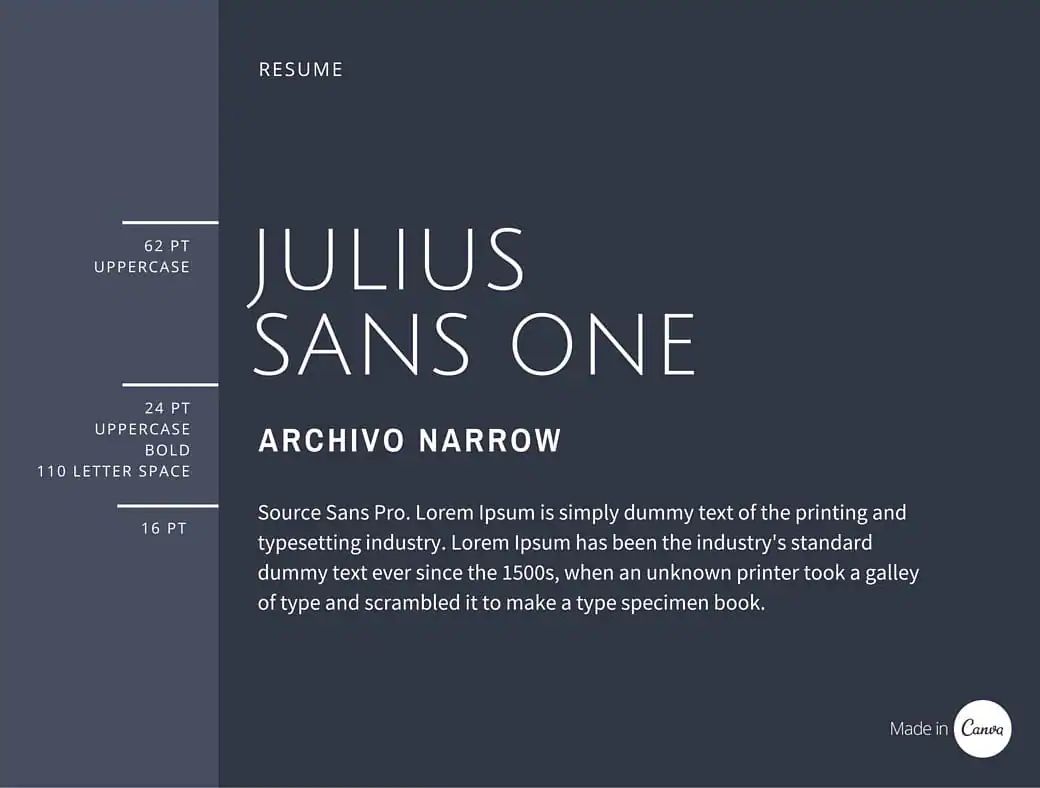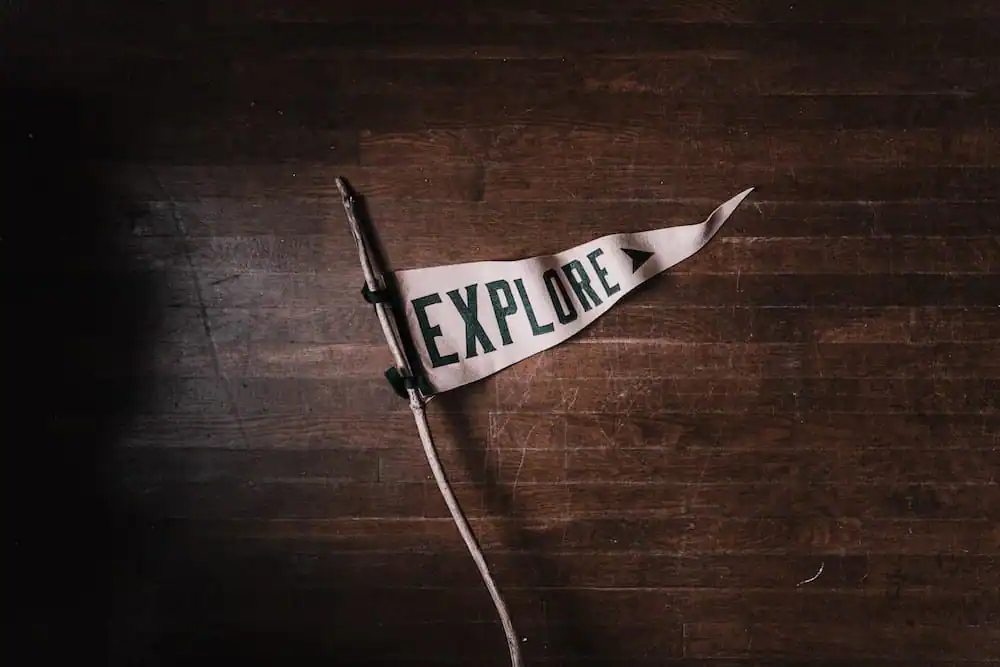
This saying applies to all aspects of life, but is especially applicable to art and design. The thing about design — in this case, font combination — is that even though there are some logical rules and best practices to follow, there are still no absolutes. Each rule can be shifted, nudged, bent or broken to serve a purpose in creating a masterpiece. Very few of the guidelines are set in stone, so you have to study the subject AND trust your design intuition. Great font combinations are crucial to a great layout. However, choosing the typefaces to pair up can be a challenging and frustrating task, especially for beginners. Typography is the foundation of web design as it is 95% of the overall layout. The first thing you have to remember is there’s a science behind typography. Each font pairing must be a vehicle in delivering the context or message of the design. It’s more than just the aesthetics of the layout. It’s an essential element in creating the overall look and feel of the project. Obviously, font pairing plays a pivotal role in web-related design projects. To build a great web design, you have to capable and knowledgeable enough to make choices and judgments with regards to fonts and font pairings. The good thing is there is plenty of font combinations readily available online. You can use these resources to find the typeface that will match whatever design or concept the project calls for. You can also use them as practice tools to sharpen your font knowledge. Having said that, it’s still important to learn how to create your own font combinations, particularly if you want a career in a design-related industry. Mastering font combinations demands time, effort, continuous study and the use of premium tools and resources. All of these elements are important to help you create a pairing that not only looks good in print, but also feels right. Here are some rules, best practices, sample pairings and a list of tools and resources to help you master the ins and outs of combining fonts.
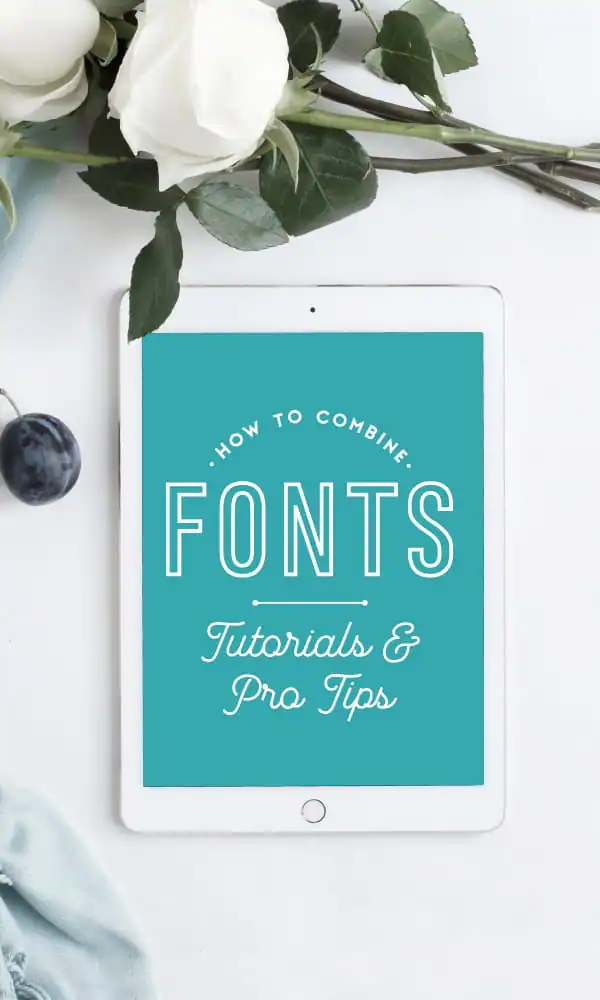
I. The Basics
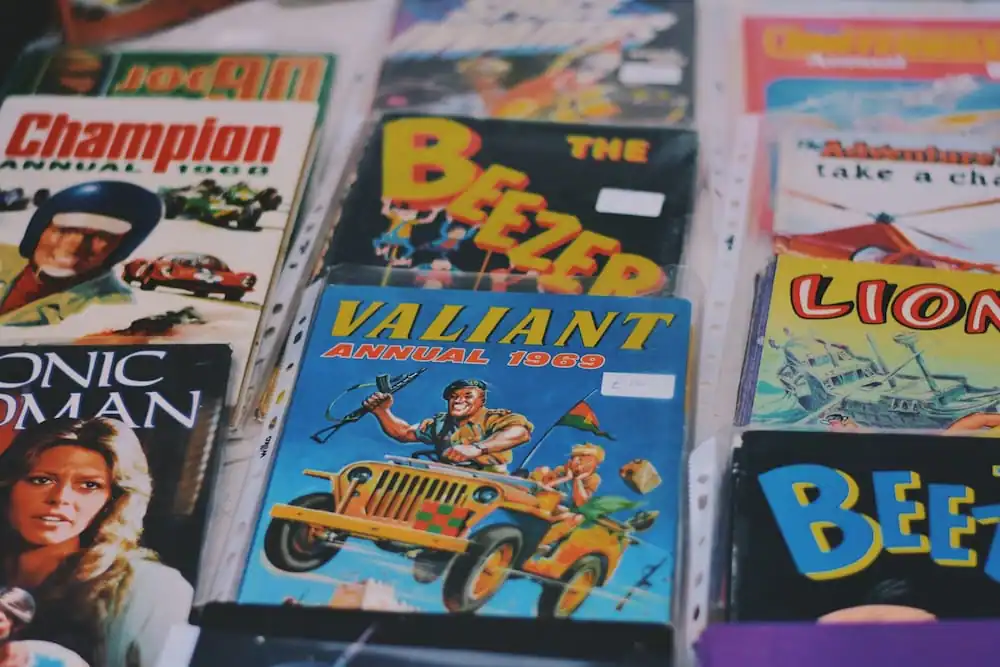
1. Work with complementary fonts.
Majority of fonts have a distinct character or mood: playful, straightforward, intense, comical, elegant and so on. Make sure the moods of your font selections go well with your design goal. For example, a curved, fun-looking typeface may be suitable for a kiddie party invitation, but not likely for a business card. Keep in mind that “introverted†and “extroverted†fonts create well-adjusted output when appropriately combined. If one of your fonts has a “strong character” (known as the display font), combine it with a neutral or simple font for a workable and proportionate design. The selection process when mixing fonts can be technical, but more often than not, it’s a trial and error method. Relying on font knowledge and gut feeling will help you develop an eye for figuring out what is effective and what is not.
A basic rule to live by, regardless if you’re a font expert or a newbie, is to keep things simple. Avoid using too many fonts. Much like blending one too many colors on a palette may produce mud, combining several fonts on a page may lead to a confusing message. That being said, using more than two fonts on a page can still produce a stunning finish. Also, at times, multiple fonts are necessary. It all boils down to starting with a simple approach: start by using a minimum number of typefaces, and end with smart editing.
3. Set up visual hierarchy.
Use newspapers and magazines as resource materials on how to establish visual hierarchy. These traditional publication formats put together fonts in a manner that aesthetically differentiates various textual elements (headline, intro, image caption, body copy subheads, pull quote, byline). Factors like size, weight, and spacing all play a role in the way the eye must navigate the page and perceive which part is the most important. The same principles apply when combining fonts. Think about the part/s you want readers to check out first. Alternatively, you can choose the details that are most important and need to be noticeable at first glance. Afterward, build your font style and design choices accordingly.
4. Avoid identical typefaces.
Font combinations that are almost identical or too similar may appear like an error – as if you forgot to remove one of the trial fonts when you’re editing the final output. A good example is when you combine two neutral Sans-Serif typefaces. The output creates a discord where viewers will sense that something is not right with the design even if they can’t pinpoint what it is. As with any combination, the elements should complement each other, yet still produce a yin-yang feel to it.
5. Stick with a family of fonts.
This may seem like a contradiction to the tip above, but another method to create a combination that works is to use a single typeface family. To avoid look-alike errors, make sure to pick a family that comes in different styles, weights, sizes, and variations. Extended font families with ample variance enable you to conveniently establish visual hierarchy, while simultaneously making sure that you still produce a harmonized creative output.
6. Think of context.
The placement of your design helps you identify the fonts that work well with your project. The size of the text must be large enough so viewers can easily read the context. When it comes to small typefaces, clarity is particularly essential. More often than not, with small fonts, the text is in capital letters, and there’s generous spacing in between. These design choices emphasize legibility. Besides font size, styles also have an effect on readability. An excellent kick off point for picking typefaces that suit the context of the design is to complement the features of the message with the identified characters or moods of a typeface. Context may also be categorized by genres and time periods. Researching into the background of a typeface, like how it’s been applied in a cultural context in the past, can help you in assessing if it’s an ideal starter font or secondary font for the project.
7. Create contrast.
The concept of contrast is to merge a variety of ideas and strategies you should consider, including visual hierarchy and how fonts harmonize with each other. Creating contrast is possible in different ways: using style, size, weight, color, and spacing, to name a few. For example, a large, bold font can be combined with a tall, thin one. Even though they are virtually the exact opposite of each other, they work efficiently together mainly because of their difference. The disparities help in creating specific roles for each typeface, enabling them to shine as individual parts of the design.
8. Refrain from creating conflict.
When pairing up fonts, it’s great to create contrast, but not if you produce conflict. The fundamental principle of contrast versus conflict is to remember that just because two typefaces are different doesn’t mean it’s hard-wired that they’ll complement each other. In most cases, fonts that share some features – like when they have the same size – are more inclined to work well together, even if their look or style differs.
9. Choose fonts from the same designer.
Like any other aspect of design, a little insider knowledge can definitely be an advantage. Try pairing up fonts from the same designer. Most typefaces created by the same hand have the same aesthetic components. A simple research online can help you determine which fonts are from the same design stable.